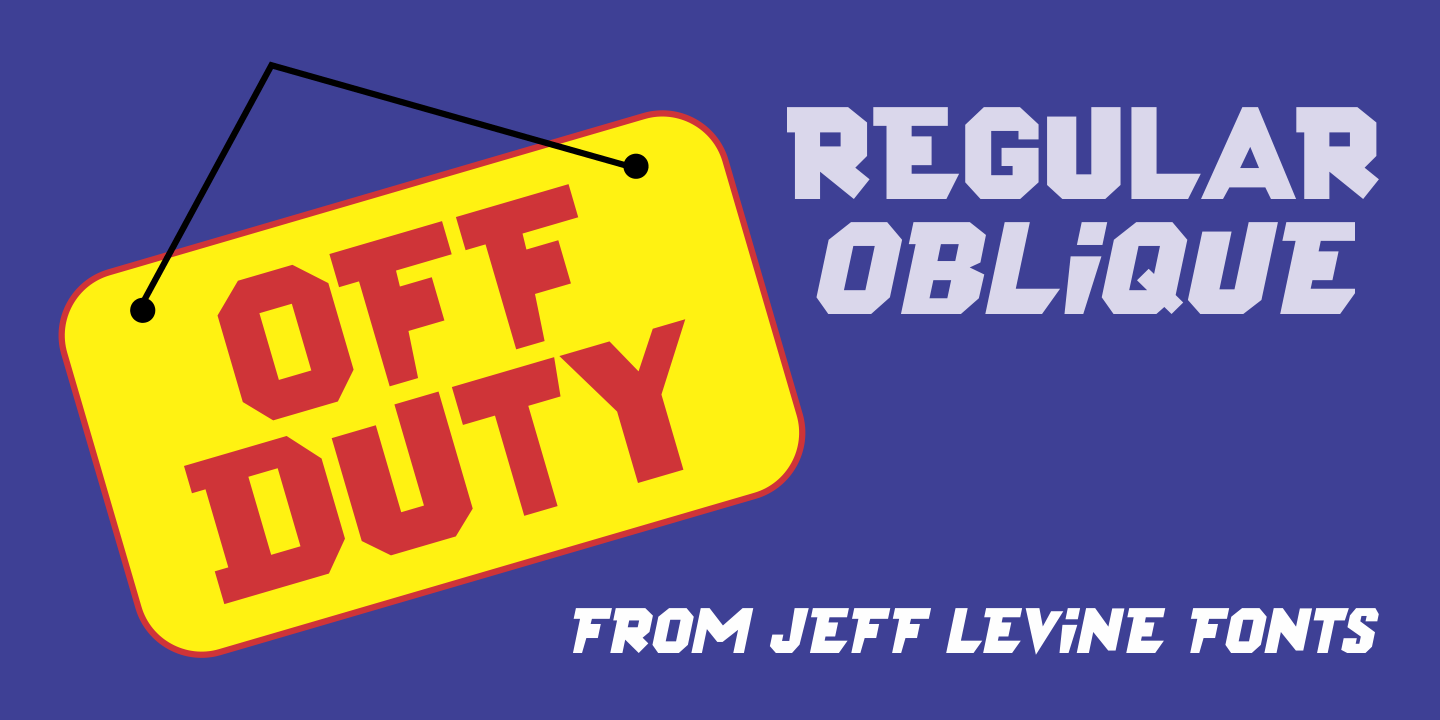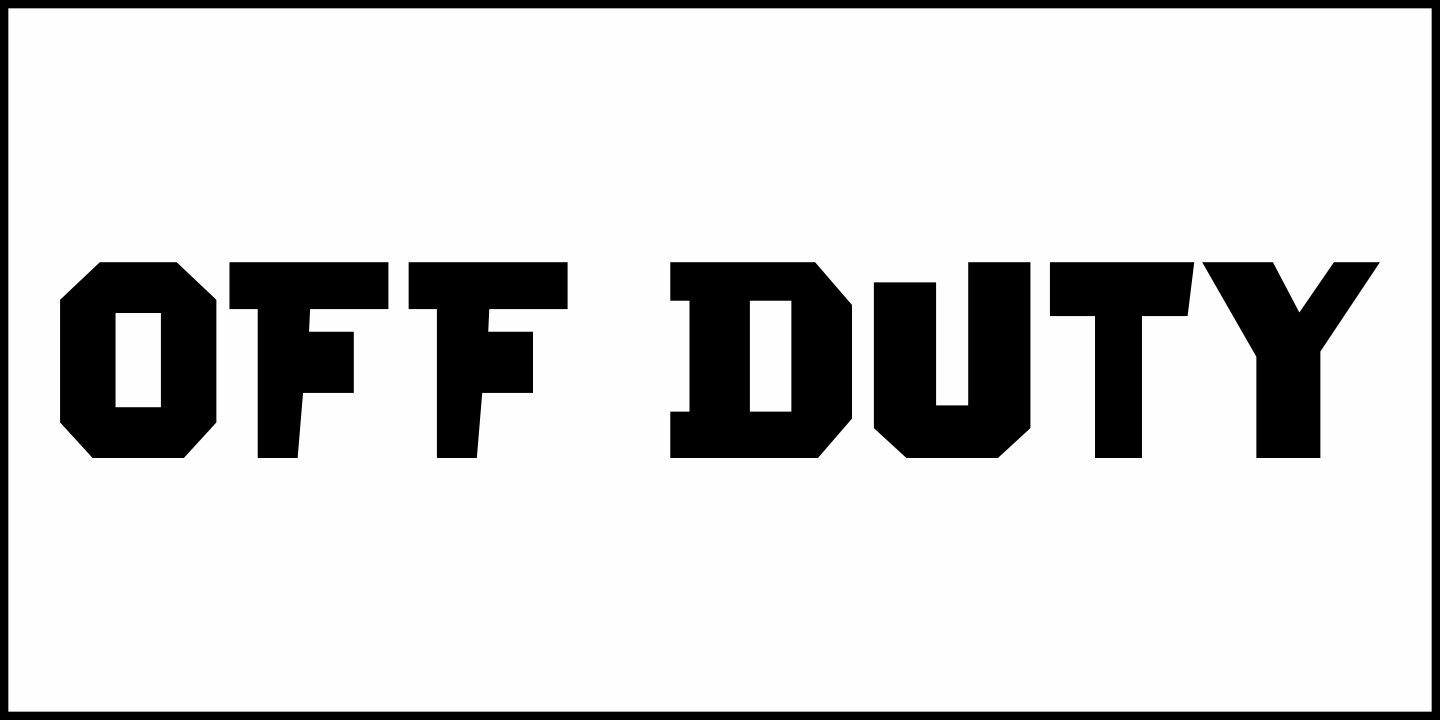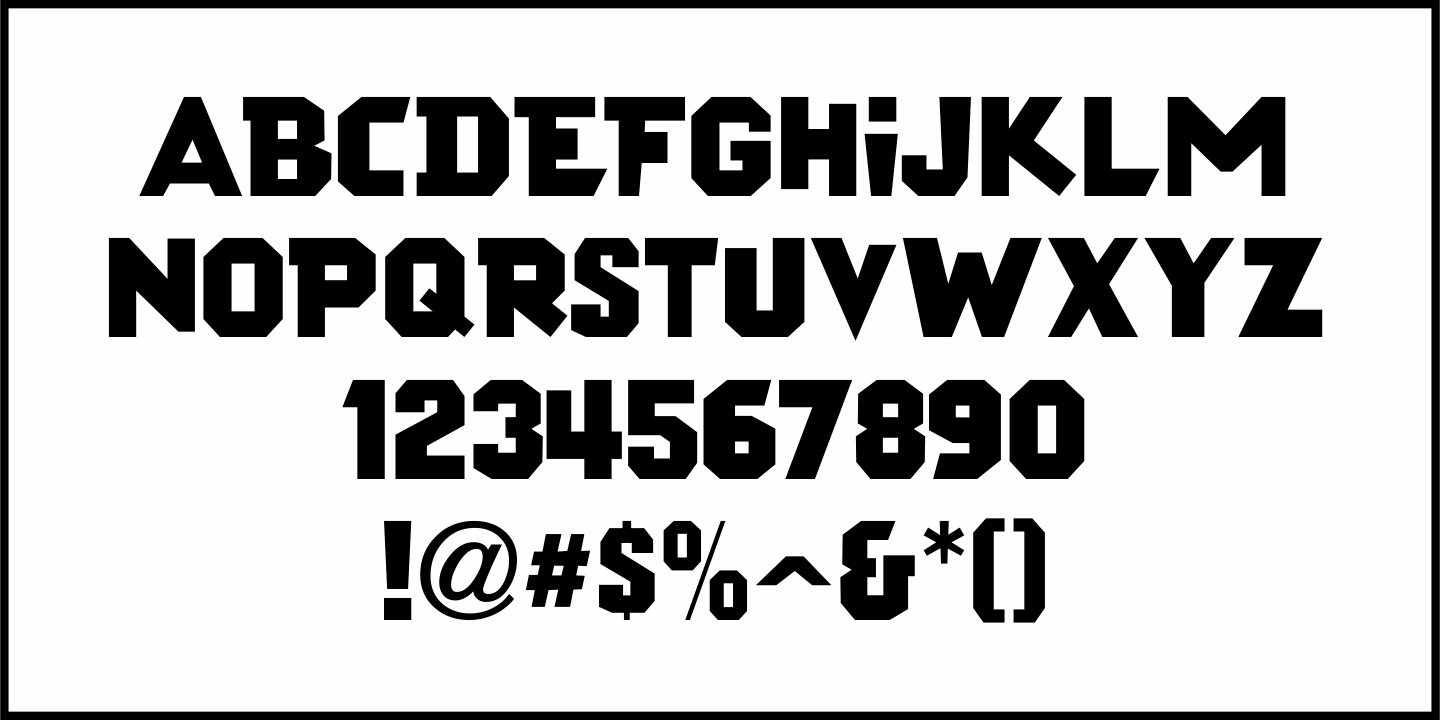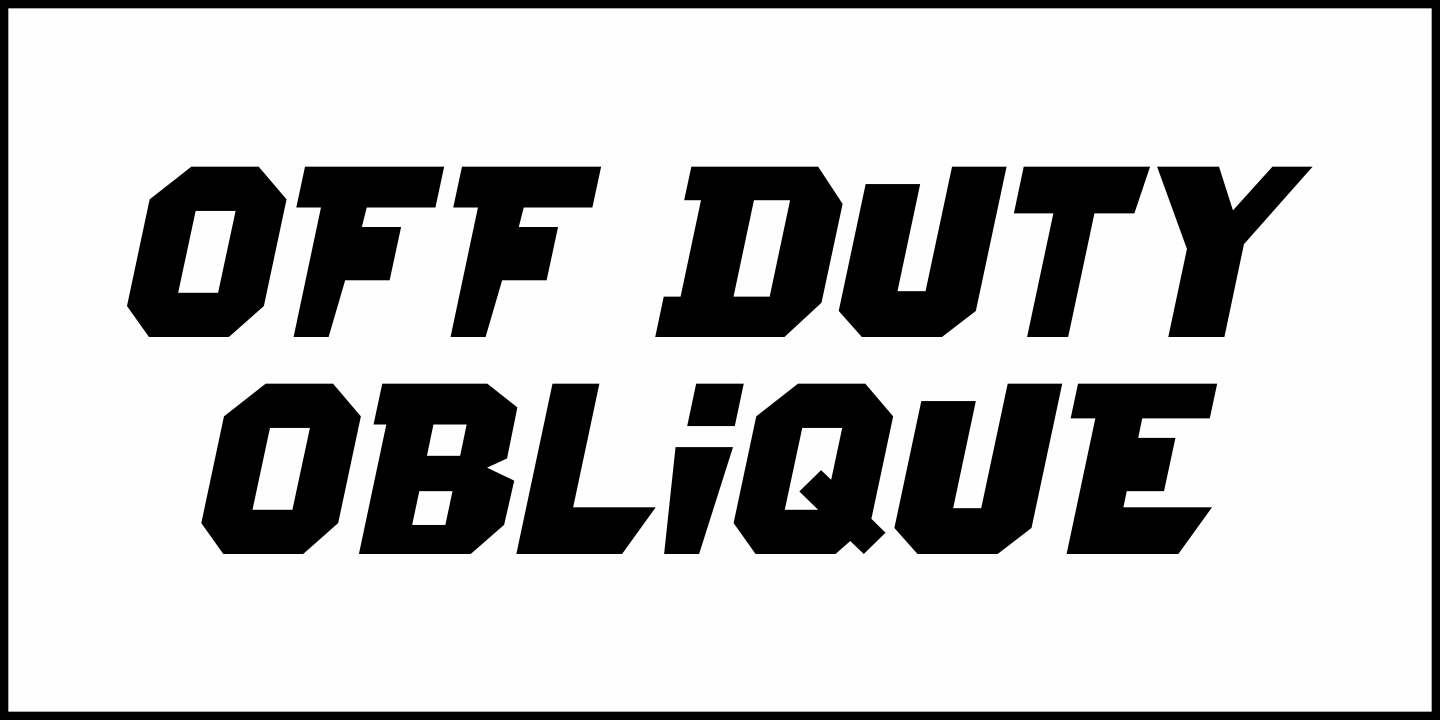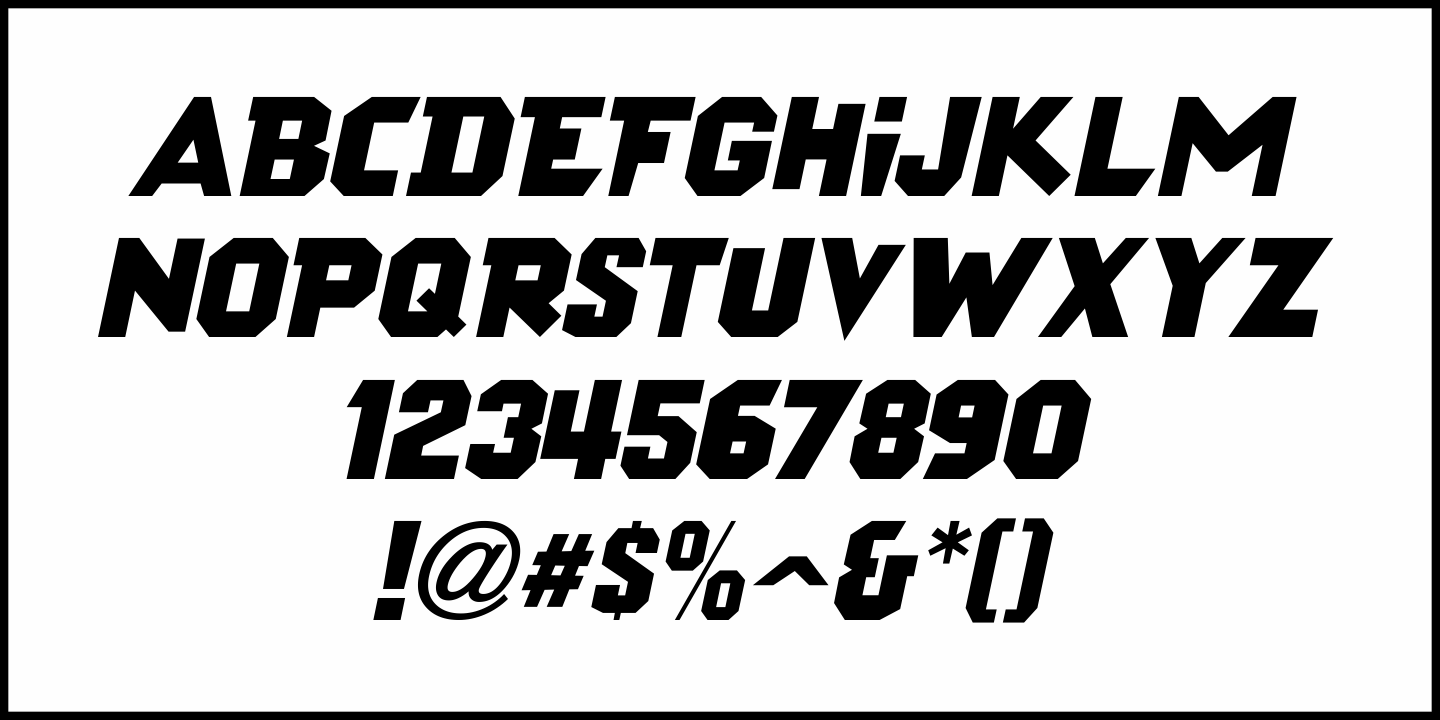
Off Duty
The free form hand lettering from the titles and credits of the 1964 French film comedy “Le Gendarme de Saint-Tropez” [“The Policeman from Saint-Tropez”] was the basis for Off Duty JNL – which is available in both regular and oblique versions.